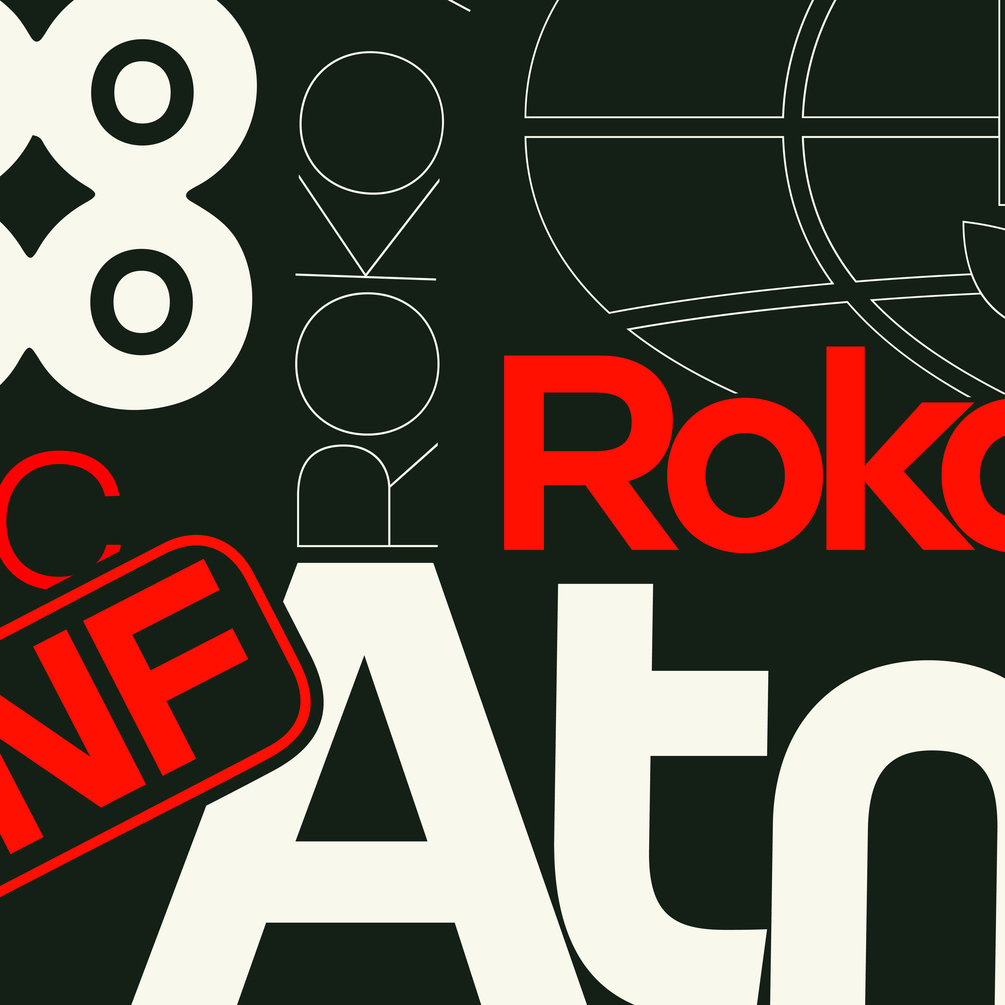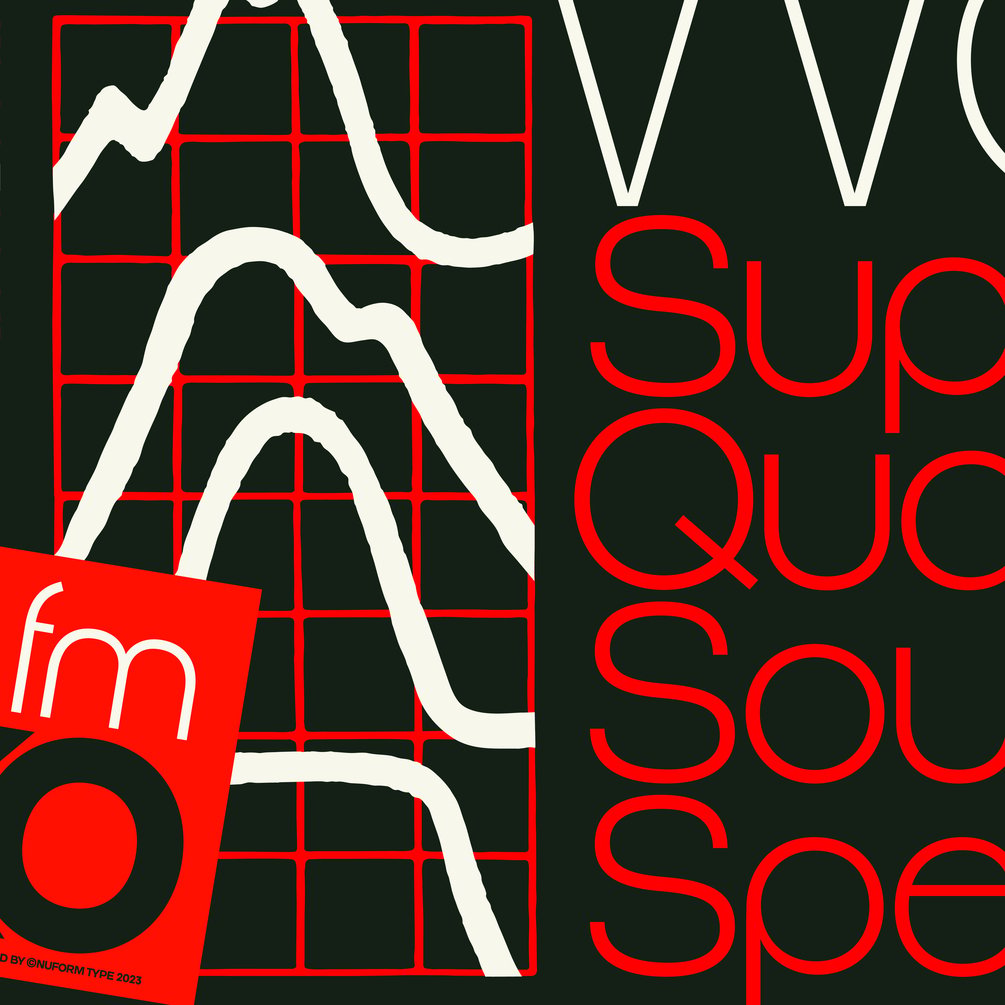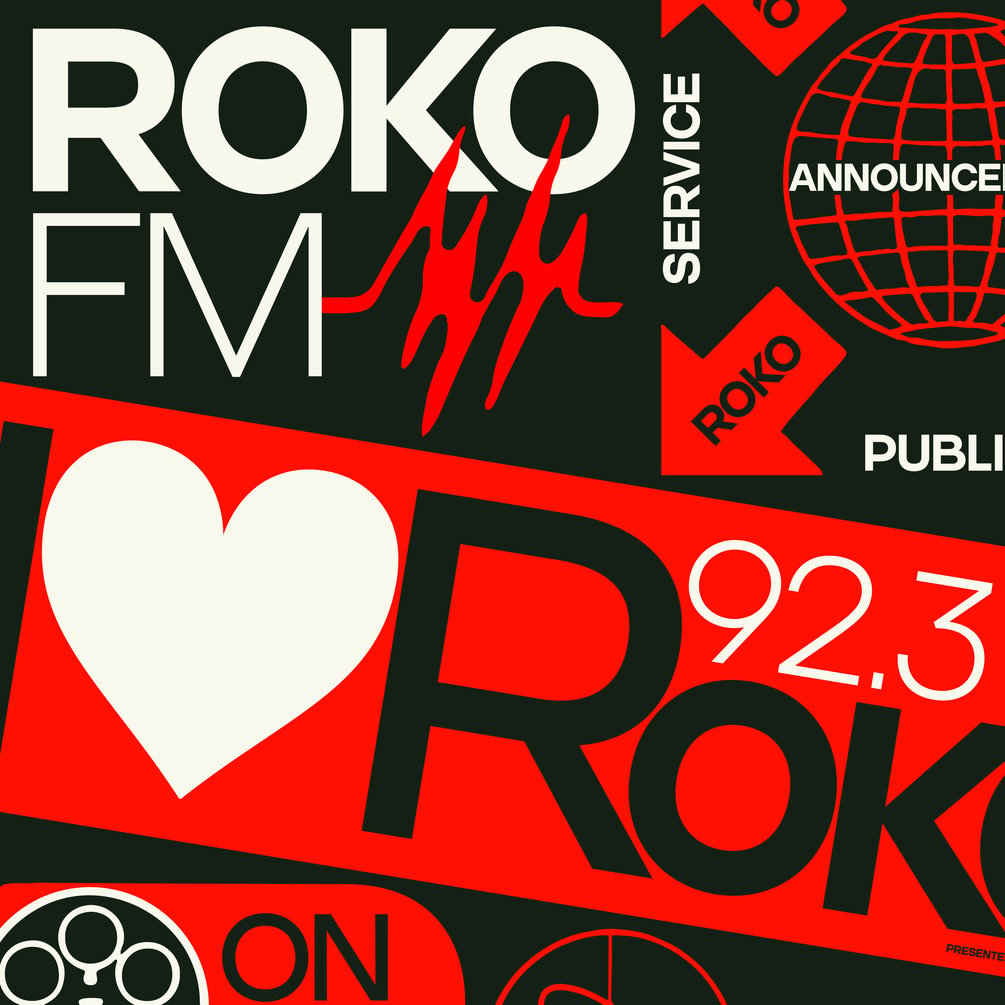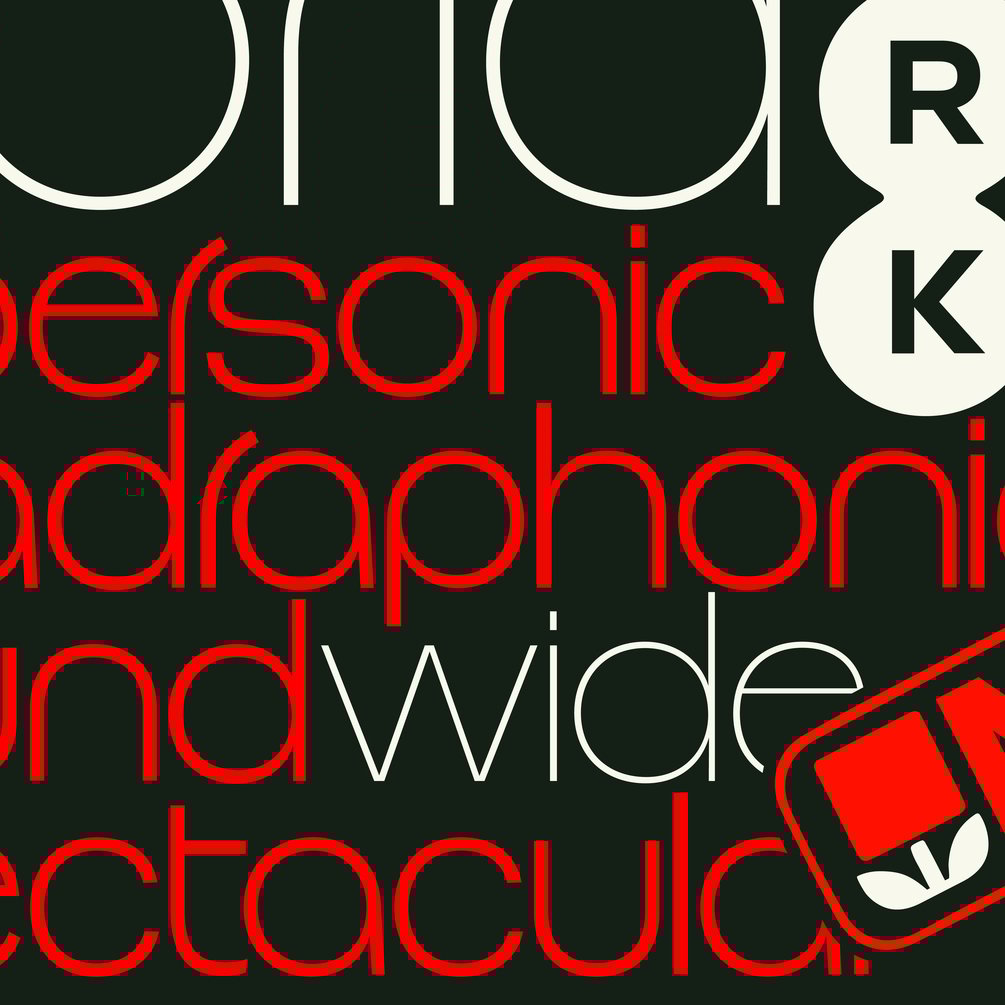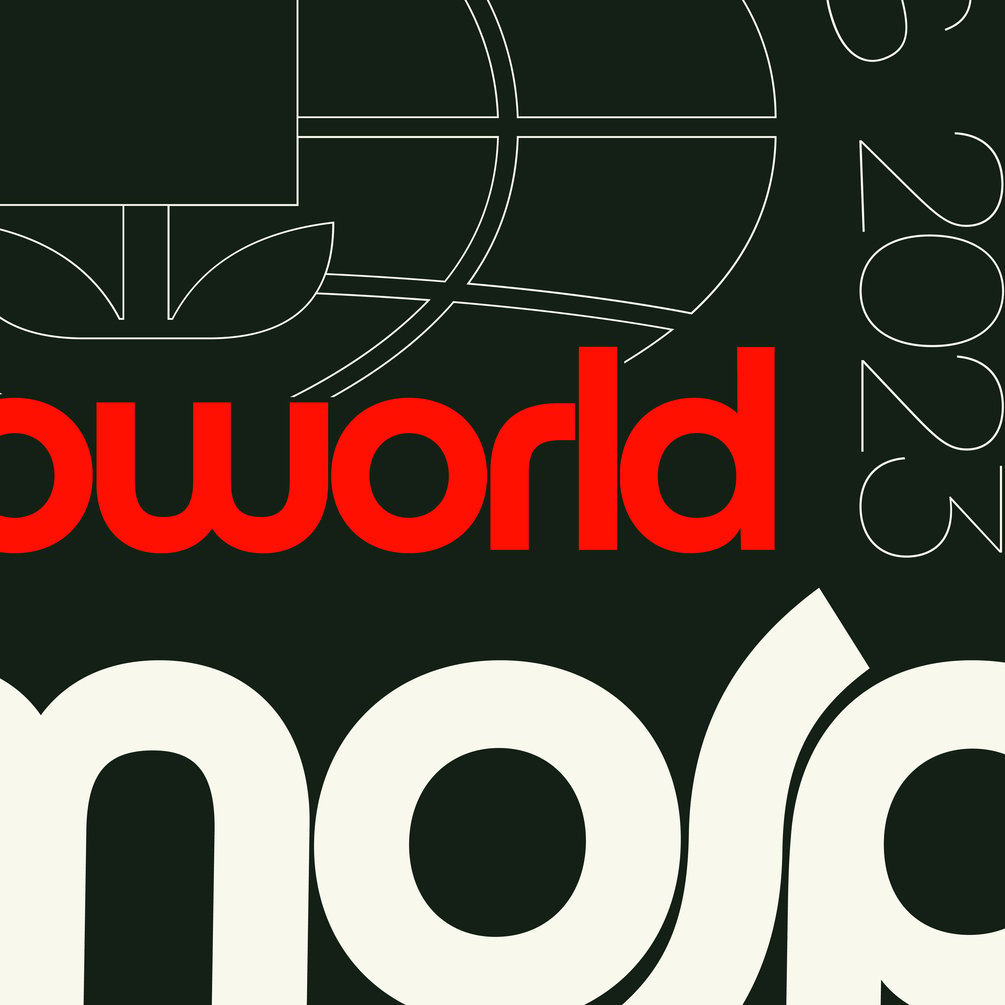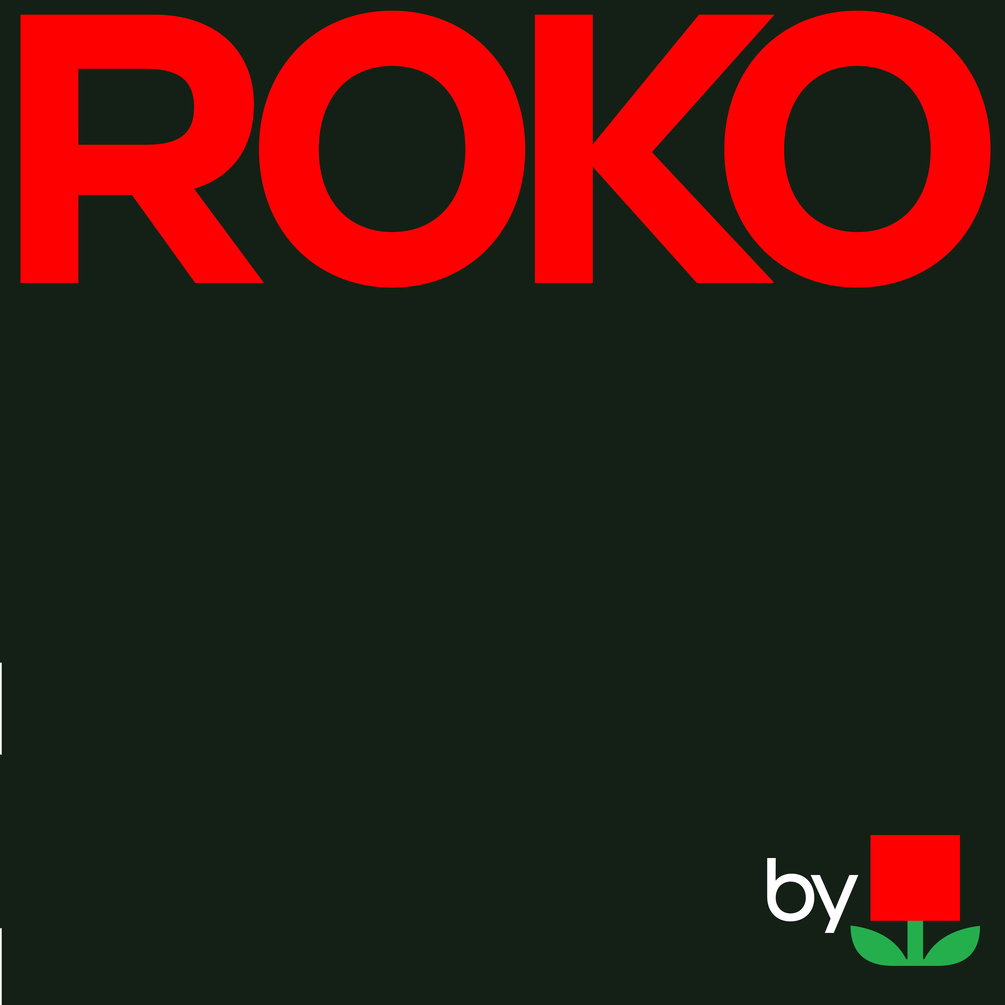
Roko
Roko, A 5 weight display that loves to be set tight and party late. Drawn in the spirit of the tigthly letterspaced Lubalin/Carnase geo-sans era with an updated touch.